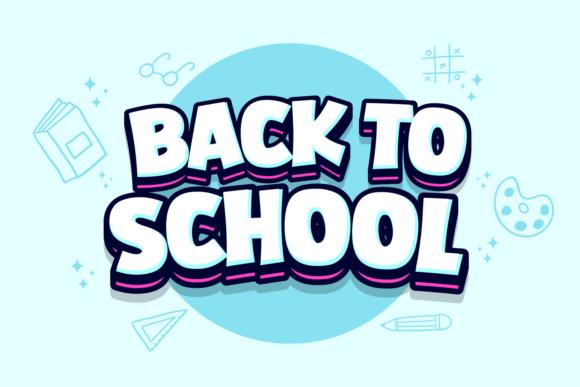
Raple Font
Raple is a thick and joyful display font. Create eye-catching typography designs with this striking typeface, inspired by cartoon and superhero comic book styles! Try it on posters, book covers, signage, advertisements, t-shirts, apps, games, etc, and you will be impressed by the results.